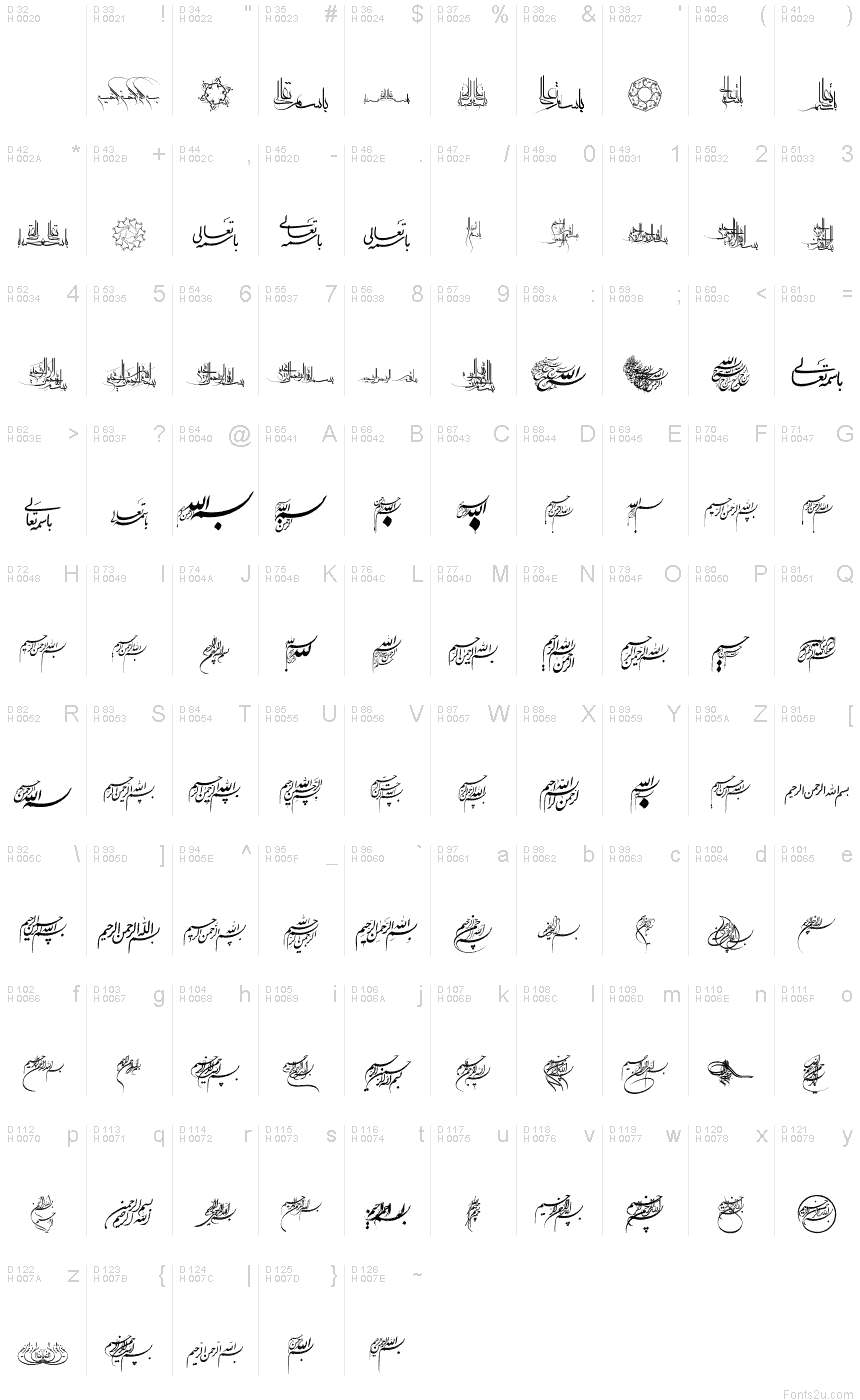
Besmellah 1, by Mojtaba Kia, is a free Arabic calligraphic font built around flowing devotional lettering and long, airborne sweeps. The letters feel ceremonial and lyrical, with fine joins, teardrop dots, and broad curves that turn familiar Arabic forms into a compact piece of ornament.
This free font fits best where the lettering can carry mood on its own: religious posters, book covers, greeting cards, mosque event materials, title cards, and framed wall pieces. It also works well for short phrases and mastheads, because the extended strokes and looping finish give even a brief line a sense of movement and reverence.